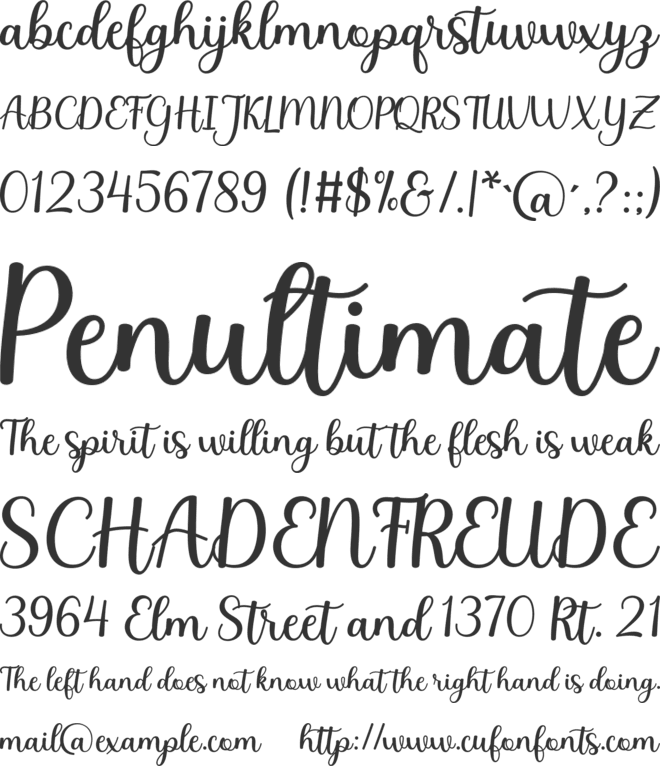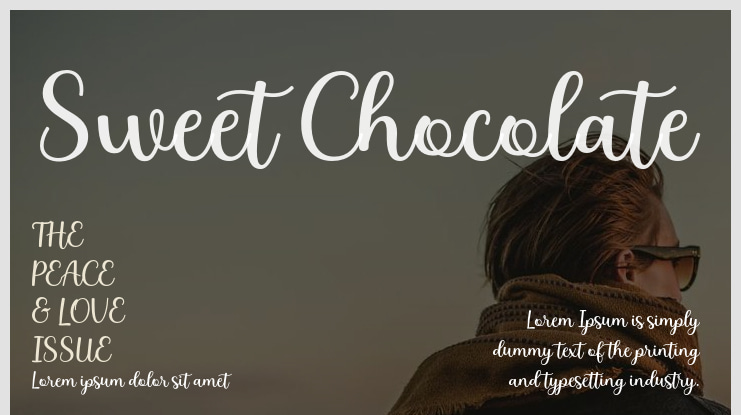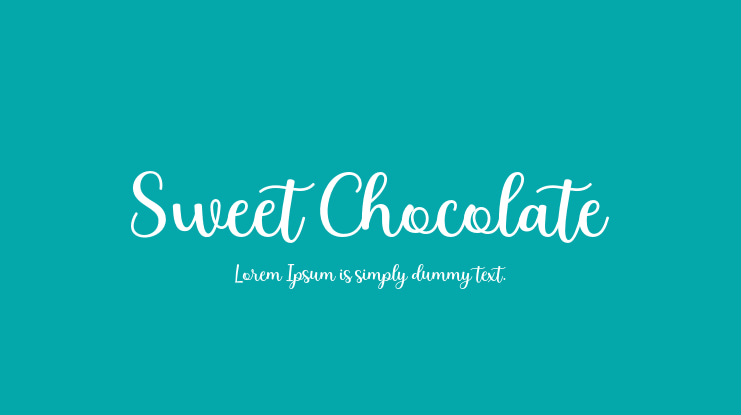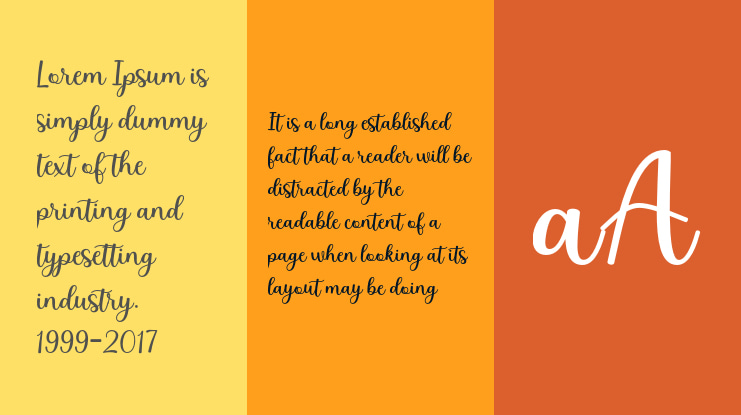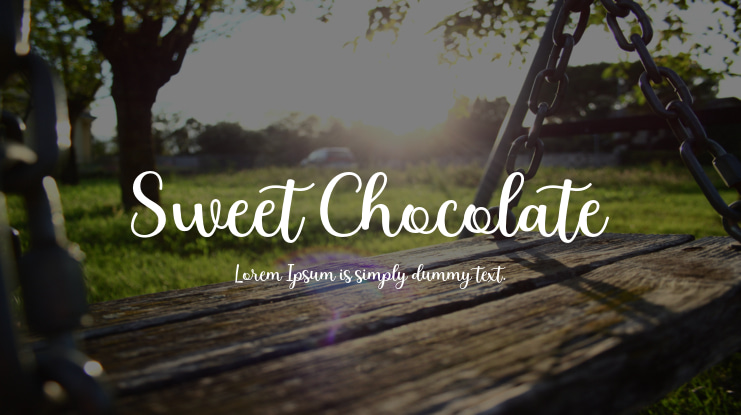
Sweet Chocolate Font
Haikal Juanda
Welcome to SweetChocolate! This font features nuanced letters that exude a chill and playful vibe. Ideal for casual branding, food and beverage packaging, social media branding, logos, vintage and retro projects. Use this font to convey messages in a fun and engaging way. Double the joy!